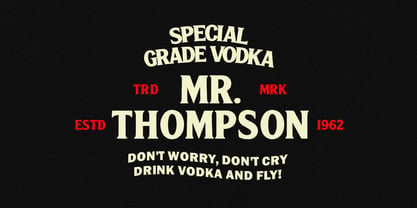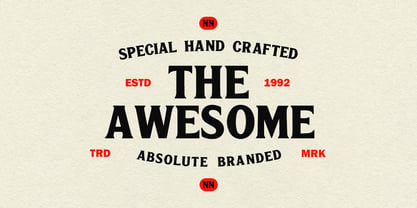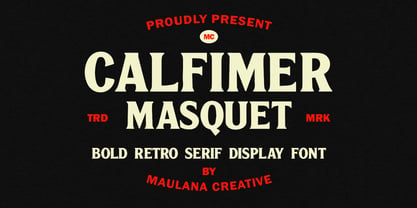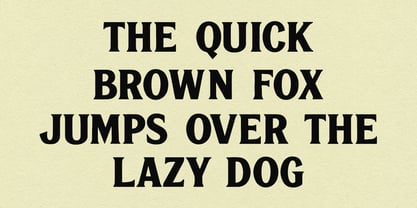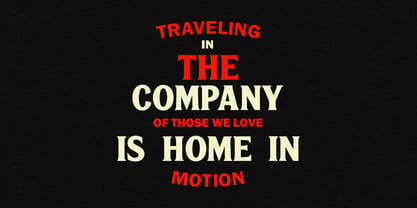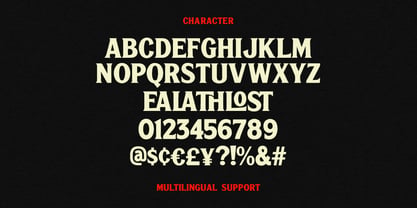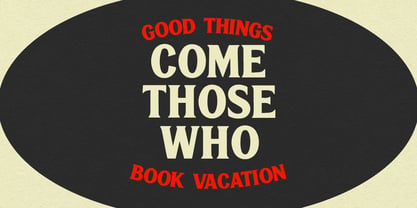
MC Calfimer Masquet
by Maulana Creative
The MC Calfimer Masquet Font Family was designed by Gilang Maulana and published by Maulana Creative. MC Calfimer Masquet contains 1 styles. More about this family
Step back in time with a modern twist! Calfimer Masquet is a powerhouse display font that blends the rugged charm of vintage typography with clean, modern precision. Designed for impact, this bold retro serif features sturdy strokes and unique character alternates that give your designs an instant "custom-made" feel. Whether you are crafting a nostalgic travel poster, a premium liquor label, or a bold lifestyle brand, Calfimer Masquet delivers a perfect balance of elegance and strength. Its high-contrast serifs and carefully balanced proportions make it highly readable while maintaining a distinct personality.
Designers: Gilang Maulana
Foundry: Maulana Creative